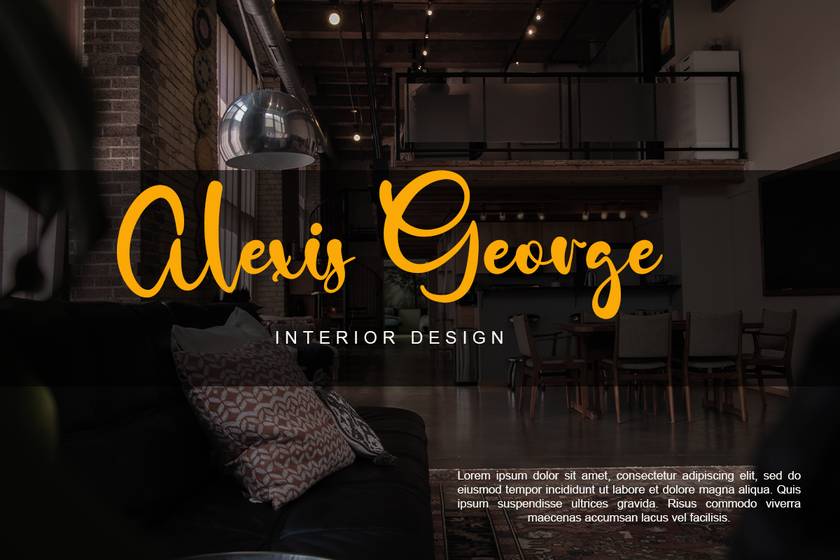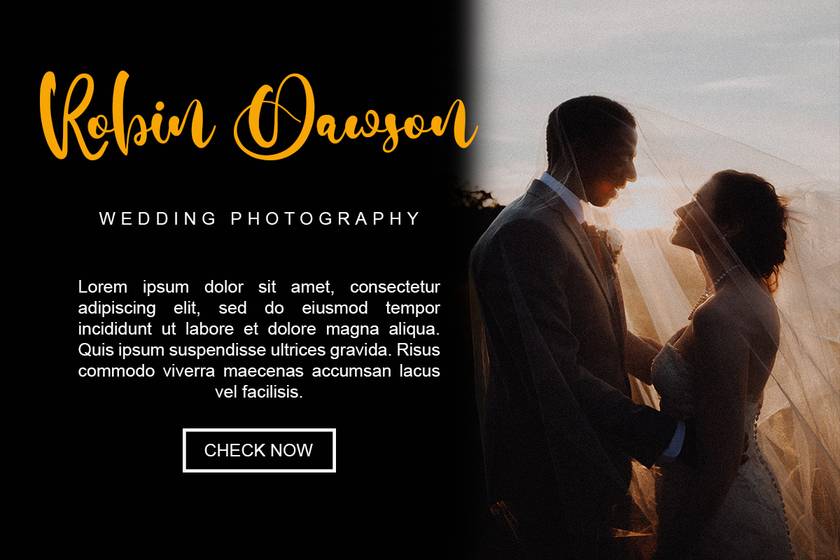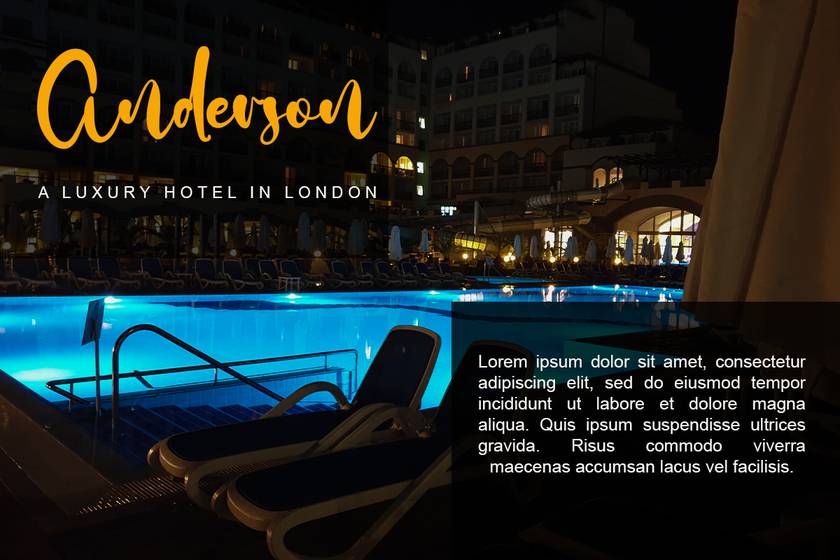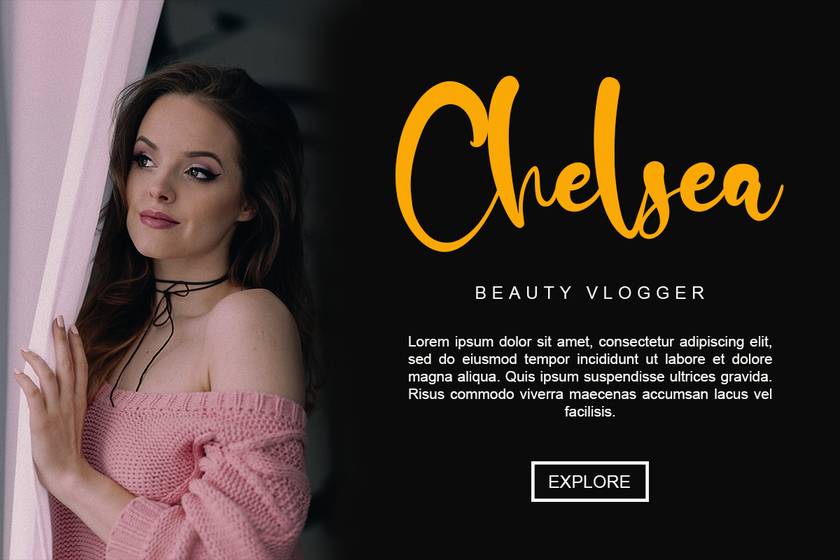
Gabriel Smith is a playful and elegant script font with lively, flowing strokes that mimic natural handwriting. Its medium weight and varying stroke thickness give it a charming, casual feel, perfect for adding a personal touch to invitations, logos, and creative branding projects. This font shines in designs that aim to convey warmth, friendliness, and artistic flair.
Gabriel Smith Font
About Gabriel Smith Font